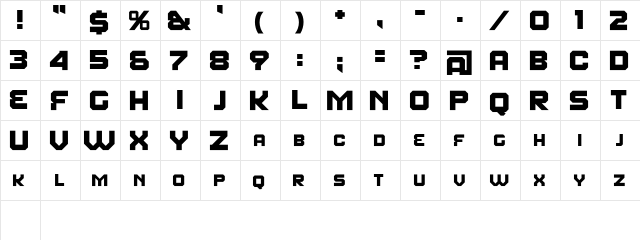
Fear Factor 'SmallCaps' Regular
Design Context for Fear Factor 'SmallCaps' Typeface
Fear Factor 'SmallCaps' takes a measured approach to typography — its balanced proportions and neutral character make it a reliable workhorse for both digital and print work.